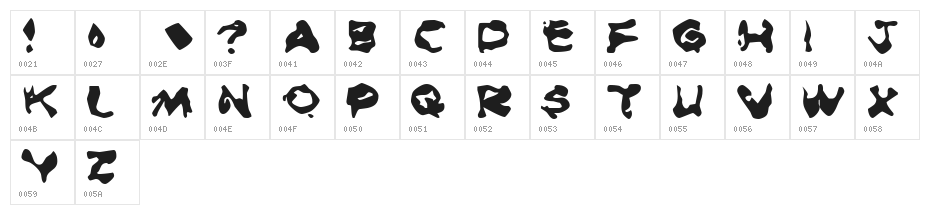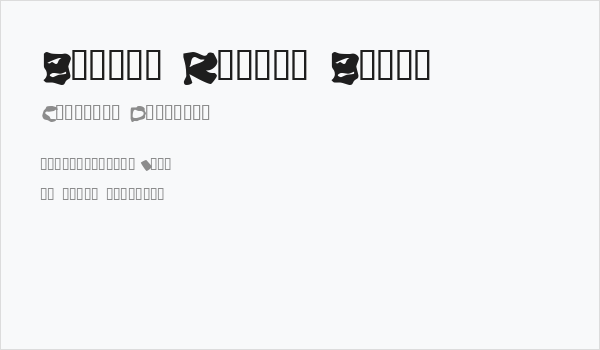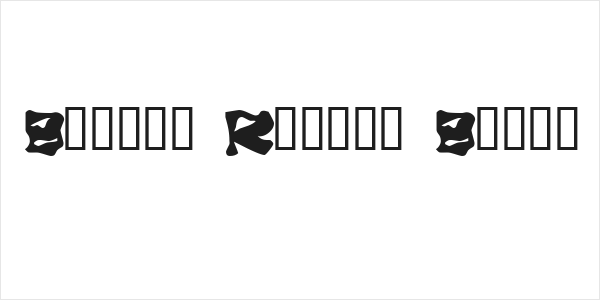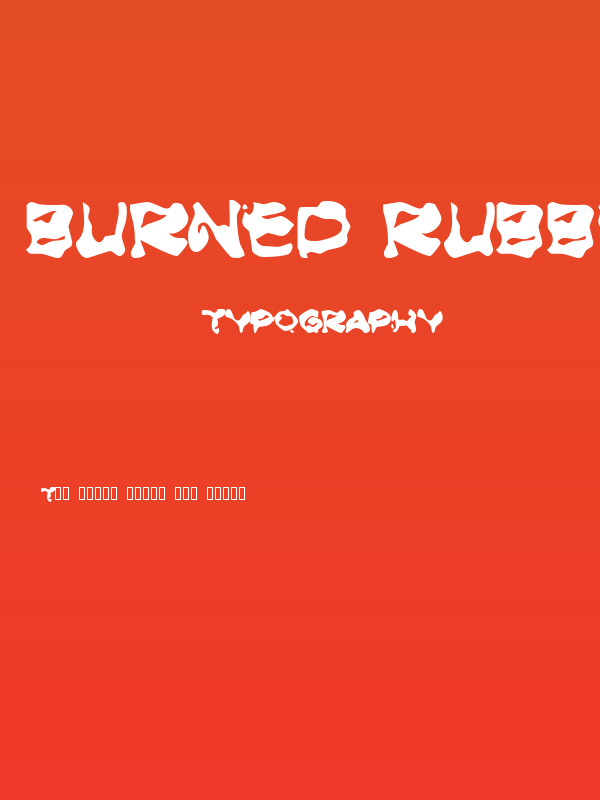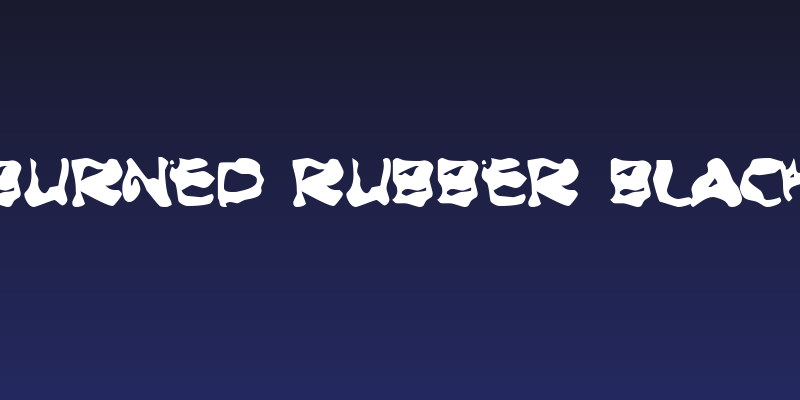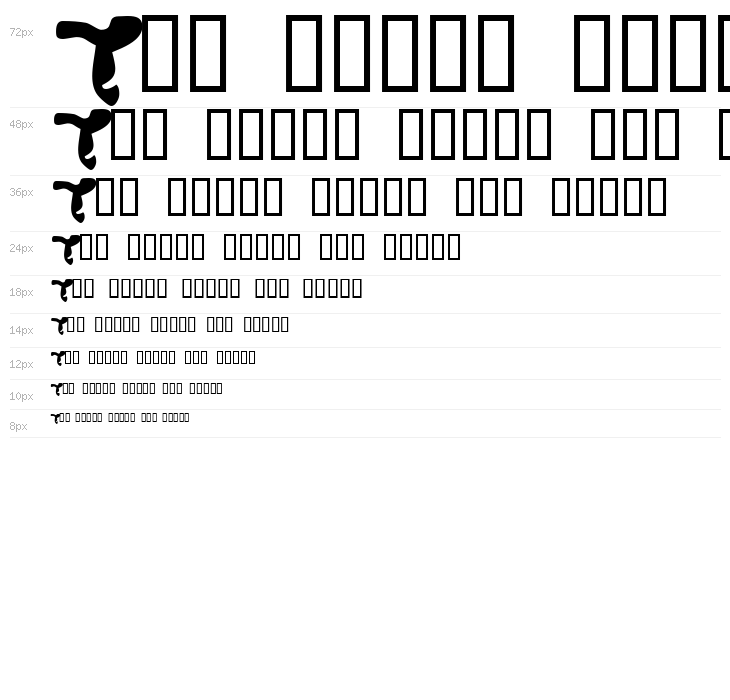
Burned Rubber Black Font
Burned Rubber Black Description
This font features a bold and rugged style, reminiscent of textures found in burned rubber or distressed materials. The uppercase letters have a dynamic, uneven appearance, with thick strokes and irregular edges that give a sense of movement and energy. The font lacks lowercase letters, focusing instead on a strong uppercase presence. The numbers and special characters continue the theme with similar boldness and irregularity, making them stand out in any design. This font is ideal for projects that require a gritty, industrial feel.
| Use Case | Logos, Headlines |
| Proposed Projects | Ideal for automotive branding, sports team logos, or any project needing a gritty, industrial aesthetic. |